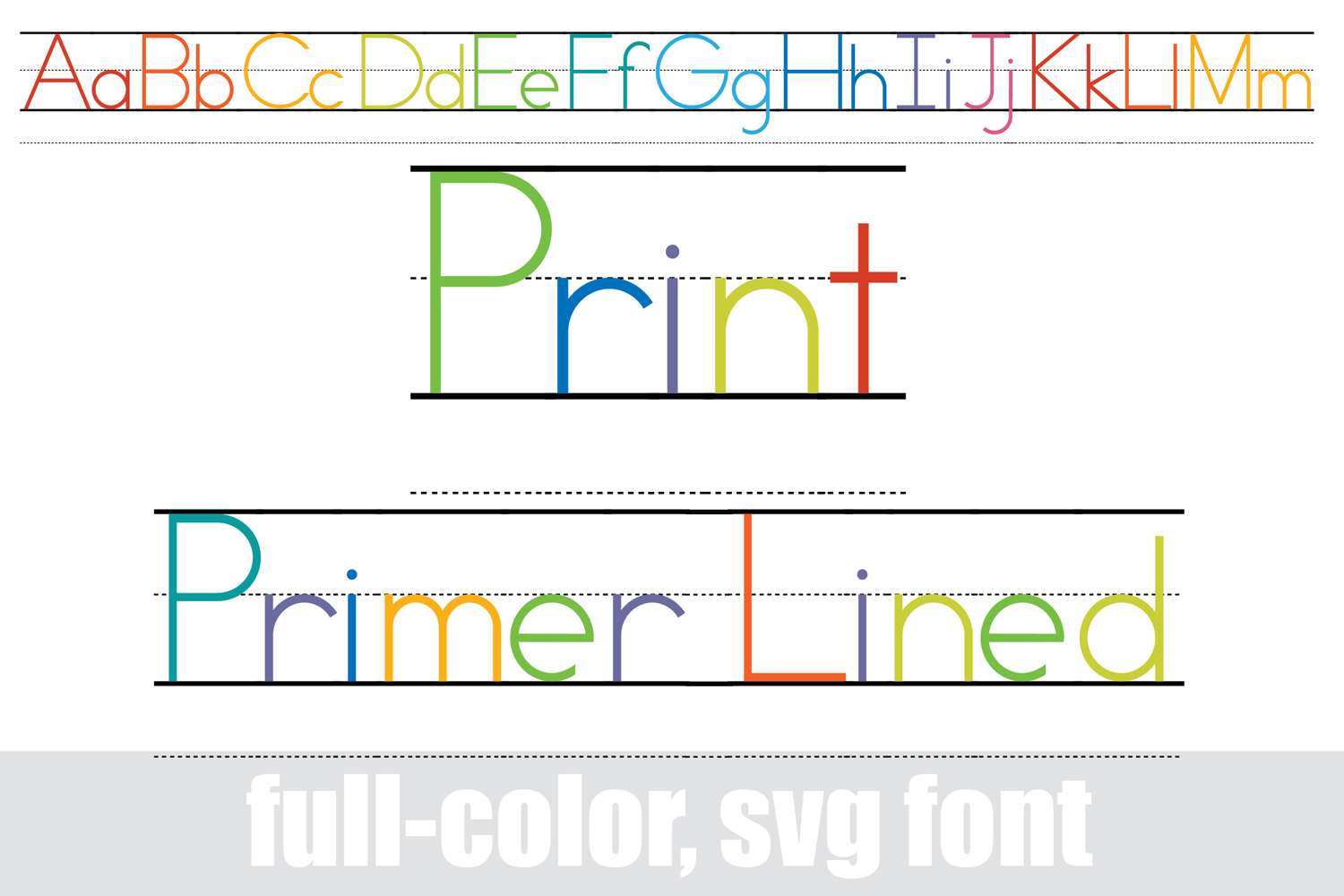
Print Primer Lined Color Font
This full-color, perfectly printed primer font is done in a bright rainbow of colors and includes the lined and dashed lined used in primary school. Use the underscore for blank lines. There are 2 alt case with additional colors of all the letters you can access through your system's character maps.